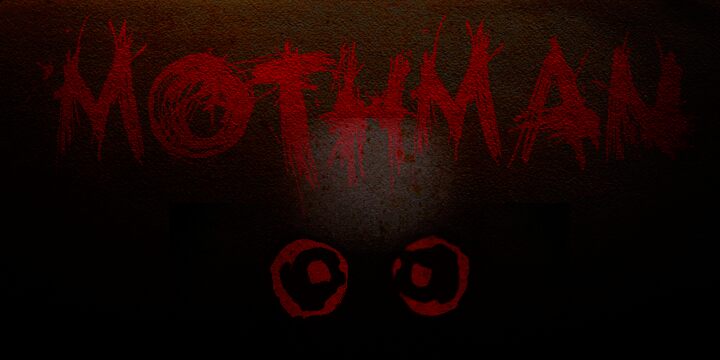
DKMothman by David Kerkhoff is a free trash-script display font with a frantic, ink-slashed surface. Its tall, uneven letters are tangled with dry scratches, splatters, and stray strokes that break far beyond the main shapes. The texture is deliberately raw and abrasive.
On music posters, its distressed marks echo photocopied flyers and noisy live sets. It also suits horror game graphics, underground magazine covers, and streetwear branding, with lettering that behaves like an agitated illustration. The scratched attack ties these uses to punk, industrial, and psychological horror imagery.